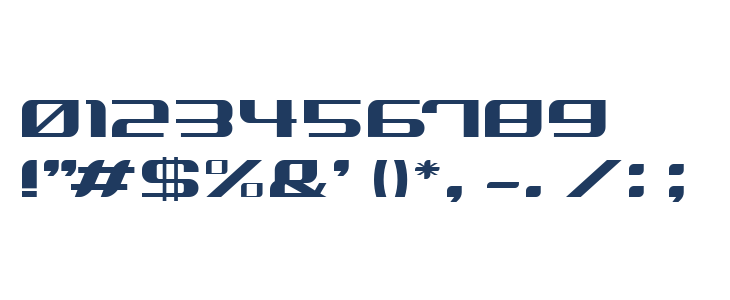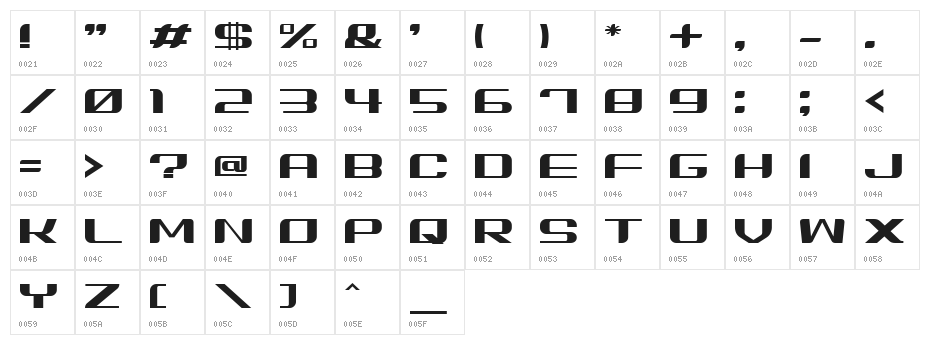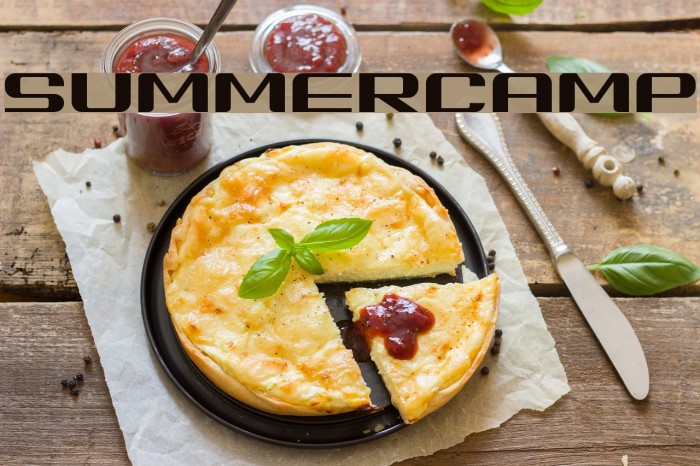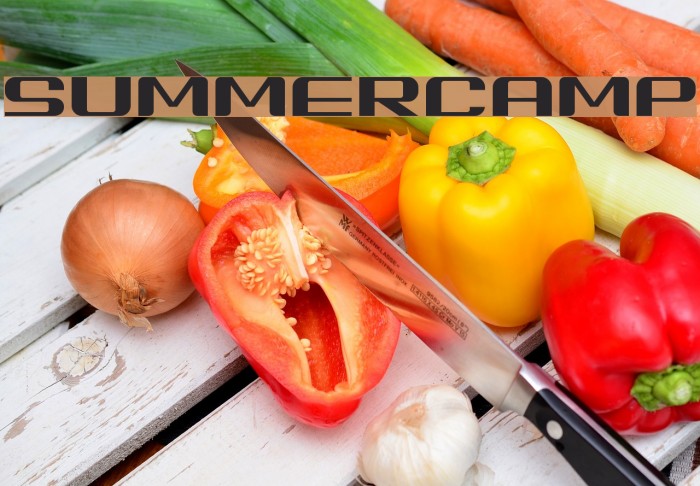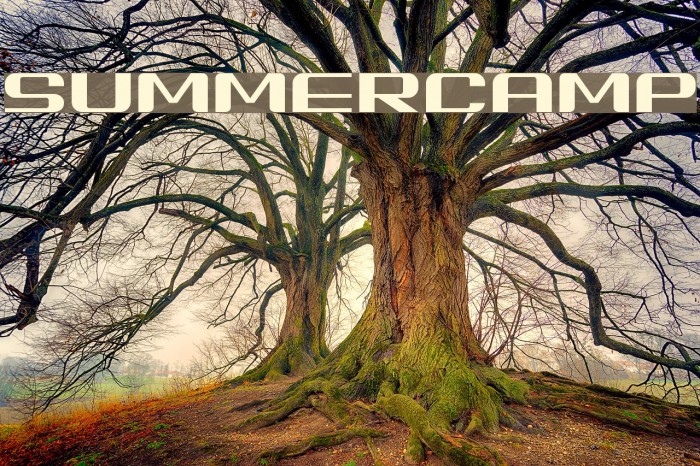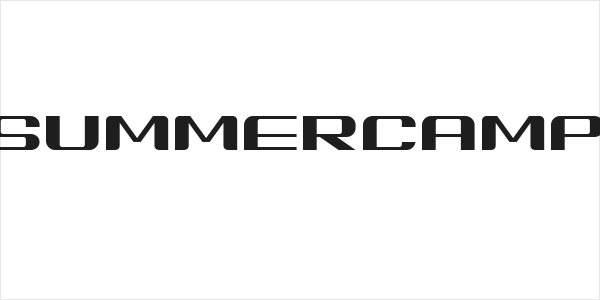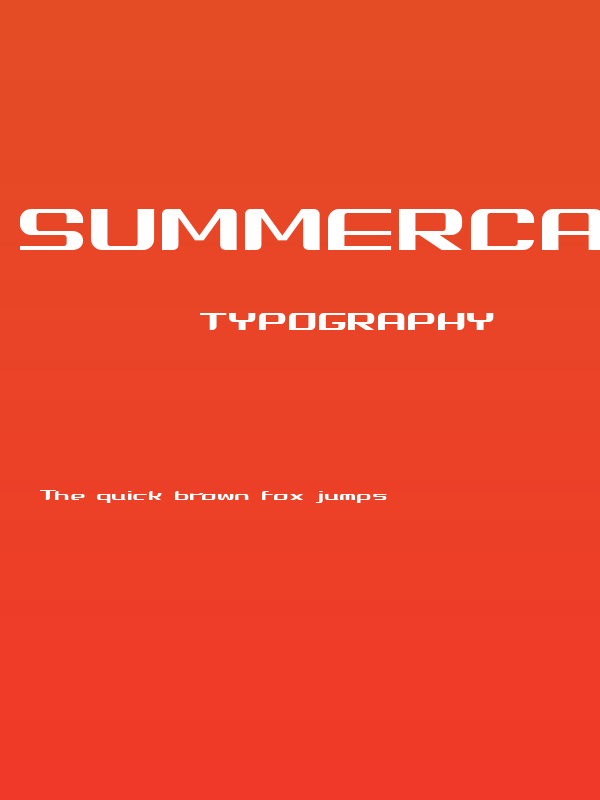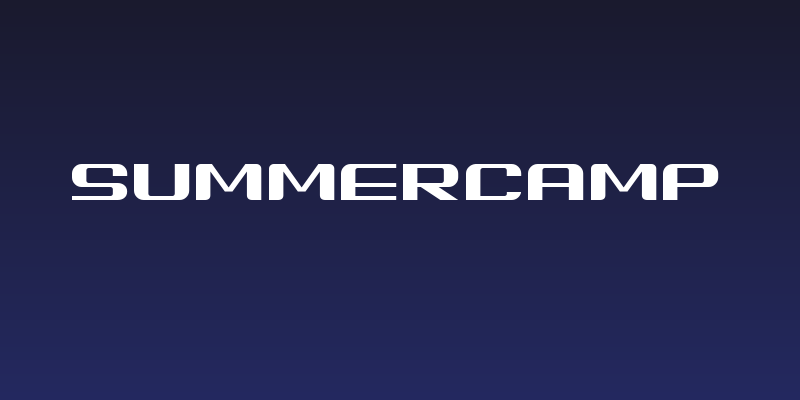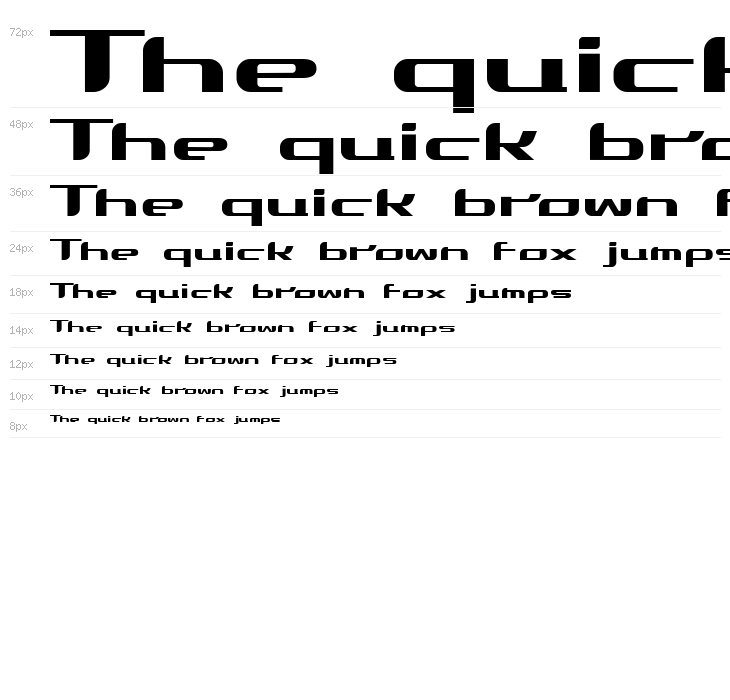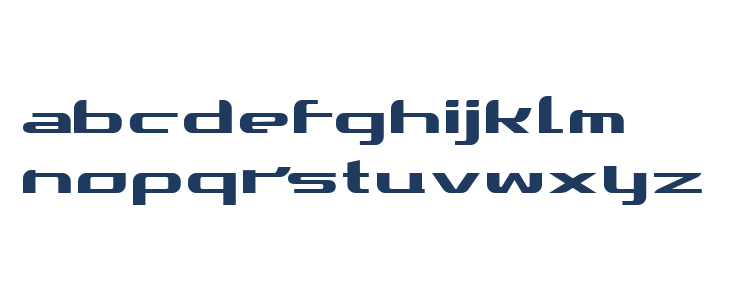
SUMMERCAMP Font
SUMMERCAMP Description
This font features a bold and futuristic design with geometric elements. The characters are constructed with sharp angles and clean lines, giving them a modern and dynamic appearance. The uppercase letters are particularly striking, with a strong presence that commands attention. The lowercase letters maintain the same geometric style, ensuring consistency across the typeface. Numbers and special characters are designed to match the overall aesthetic, making this font versatile for various applications. The unique style of this font makes it suitable for projects that require a contemporary and edgy look.